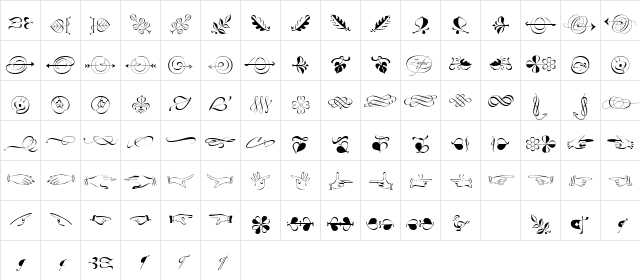
Zapfino Linotype Ornaments Regular
Design Context for Zapfino Linotype Ornaments Typeface
Zapfino Linotype Ornaments is built around its visual character rather than neutral utility — its distinctive forms are designed to make an impression at display sizes.